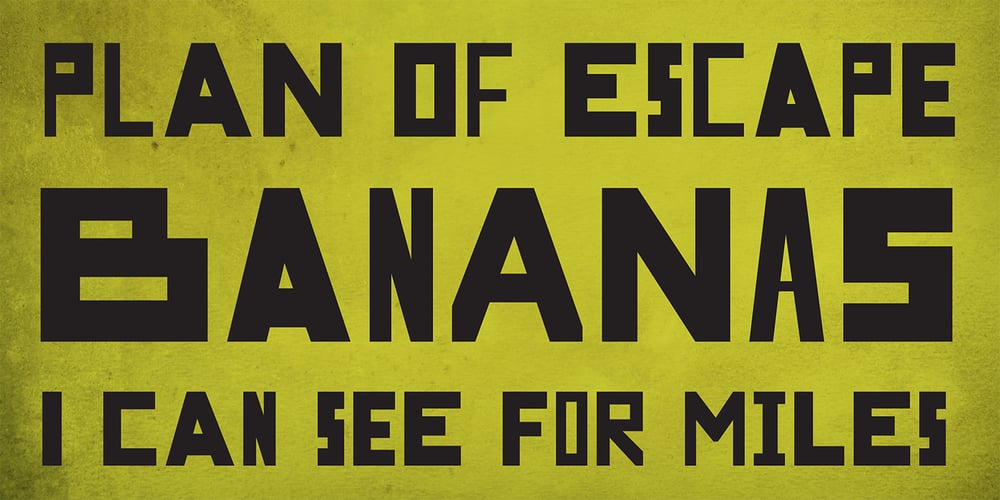
Borough Pro Font Family was designed by Michael Wallner and published by The Type Fetish. Borough Pro contains 5 styles and family package options. Inspired by a hand painted sign from Lanesboro, MN. Borough is an OpenType font that contains four variations of every character in its extended character set. Using Contextual Alternatives in OpenType savvy applications will allow the font to rotate through the variations to give a more random look to the text.